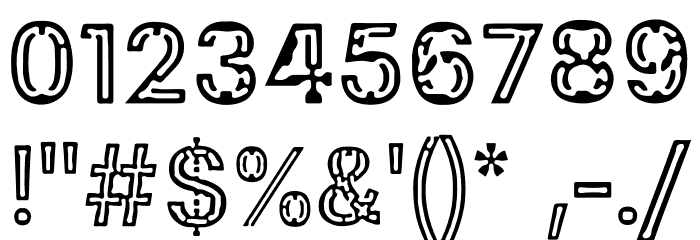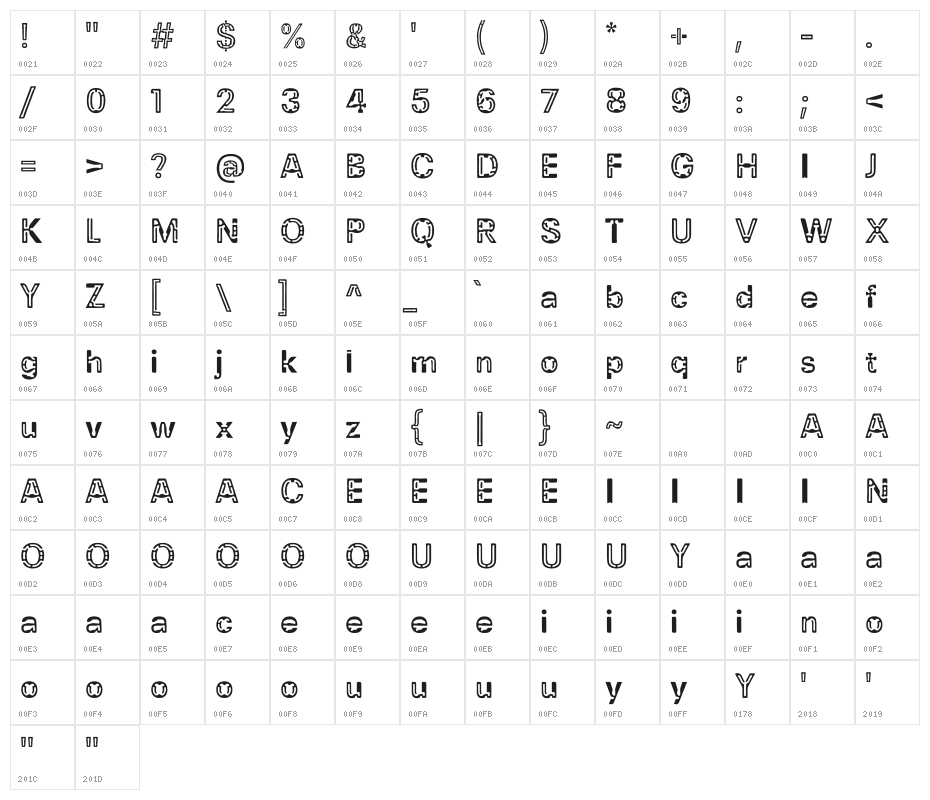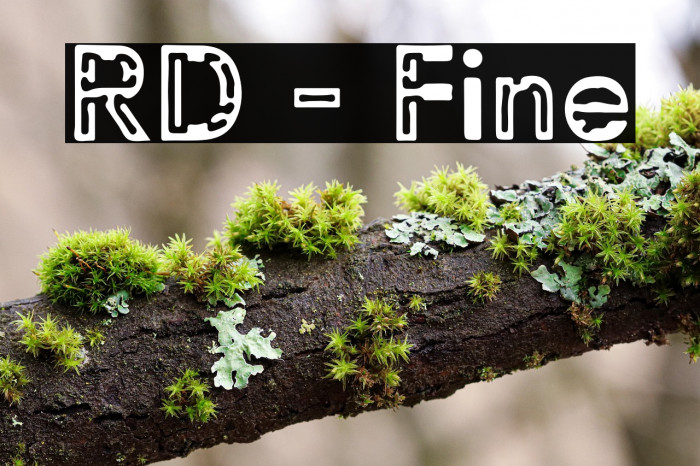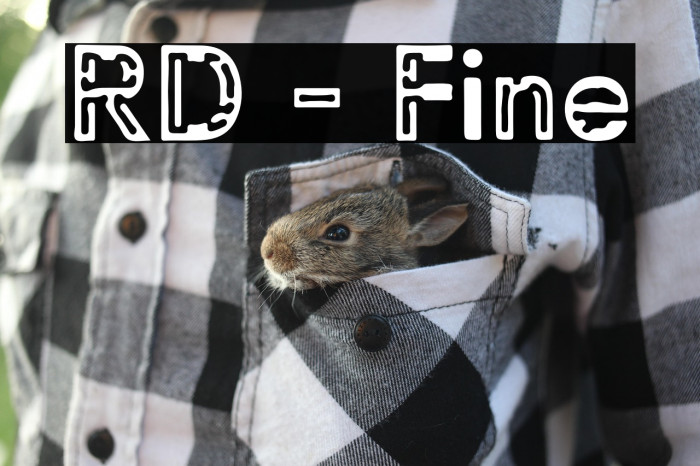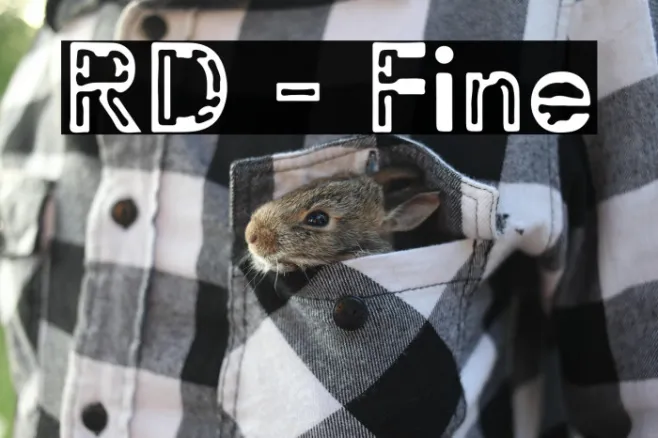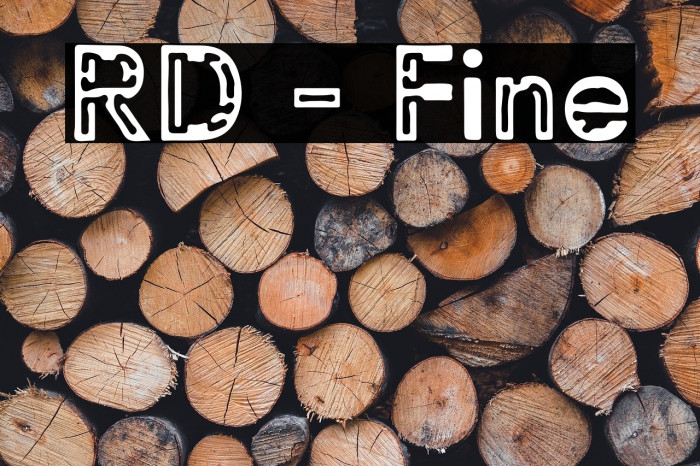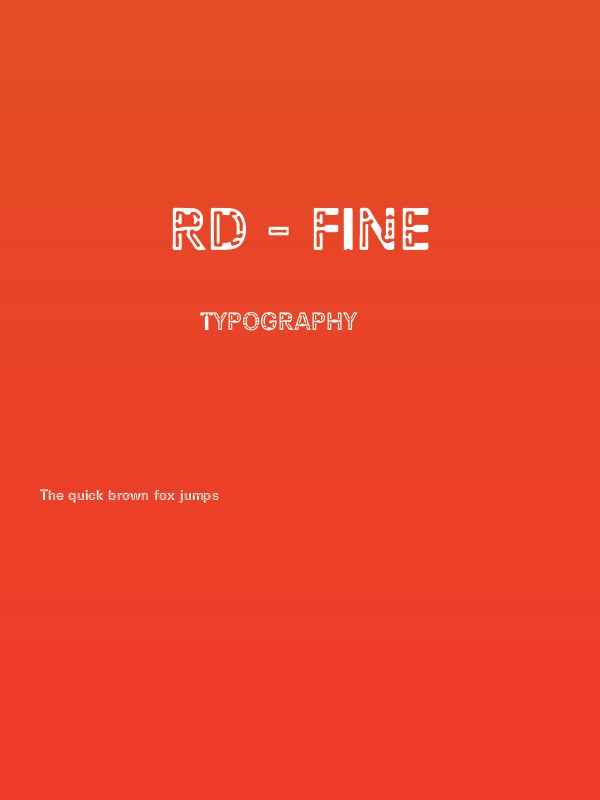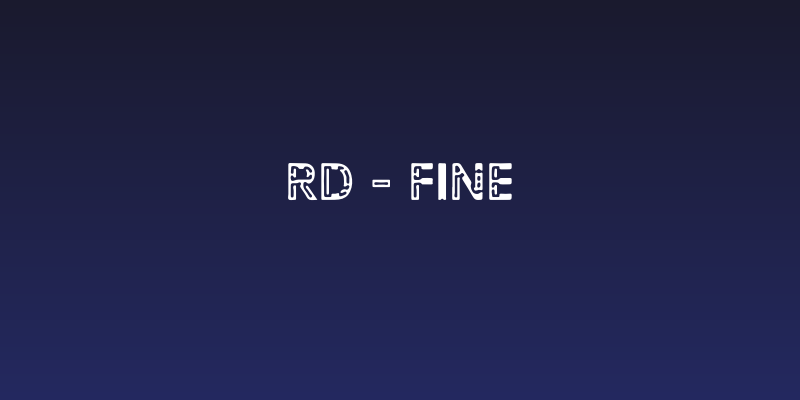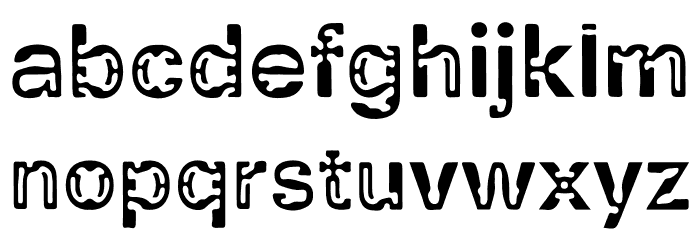
RD - Fine Font
RD - Fine Description
This font features a bold, decorative style with a unique cut-out pattern within each character, giving it a playful and artistic appearance. The uppercase and lowercase letters maintain a consistent design, with rounded edges and a slightly condensed form. The numbers and special characters follow the same decorative theme, ensuring uniformity across all glyphs. The font's intricate design makes it stand out, suitable for creative projects that require a distinctive and eye-catching typeface.